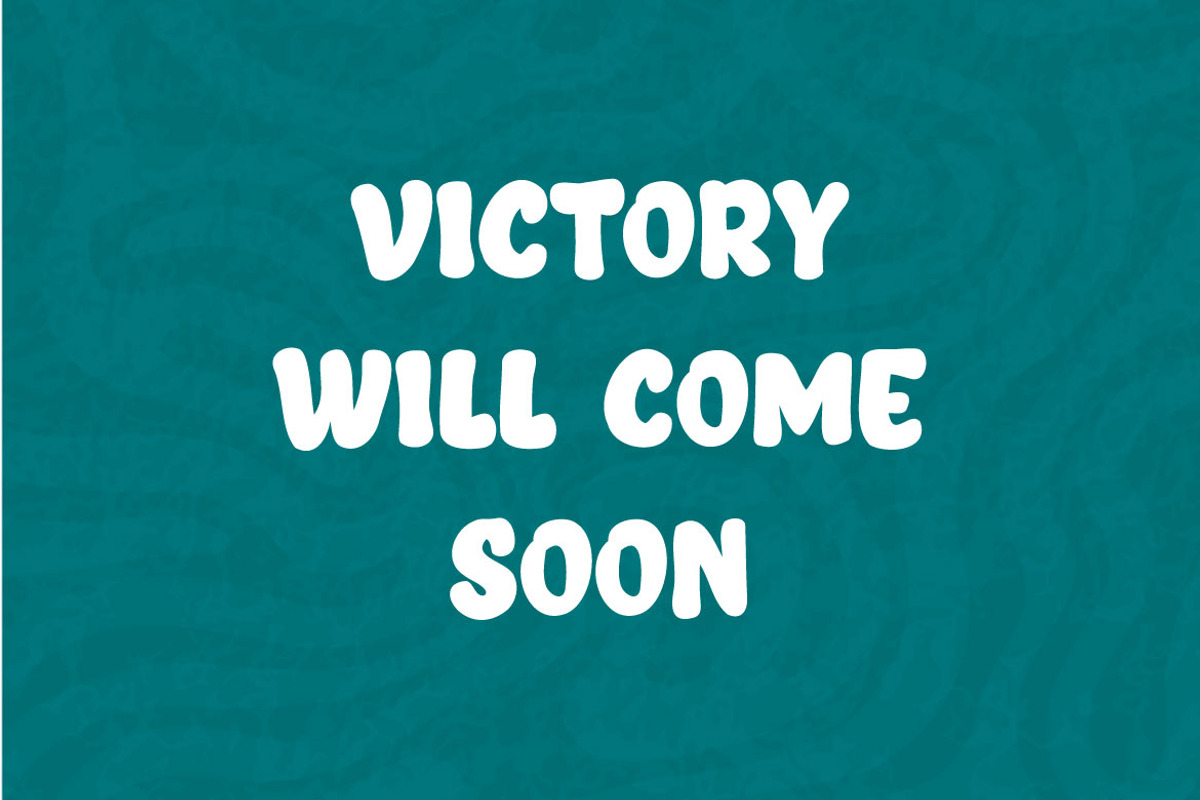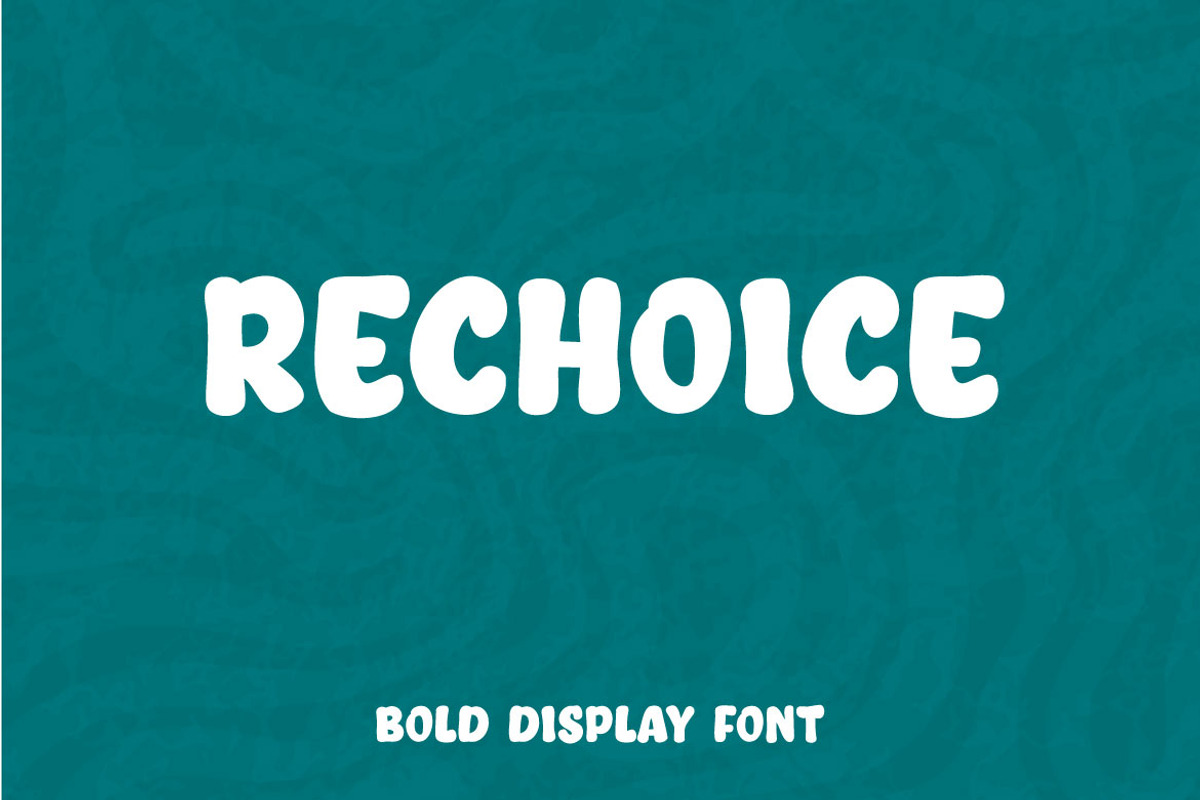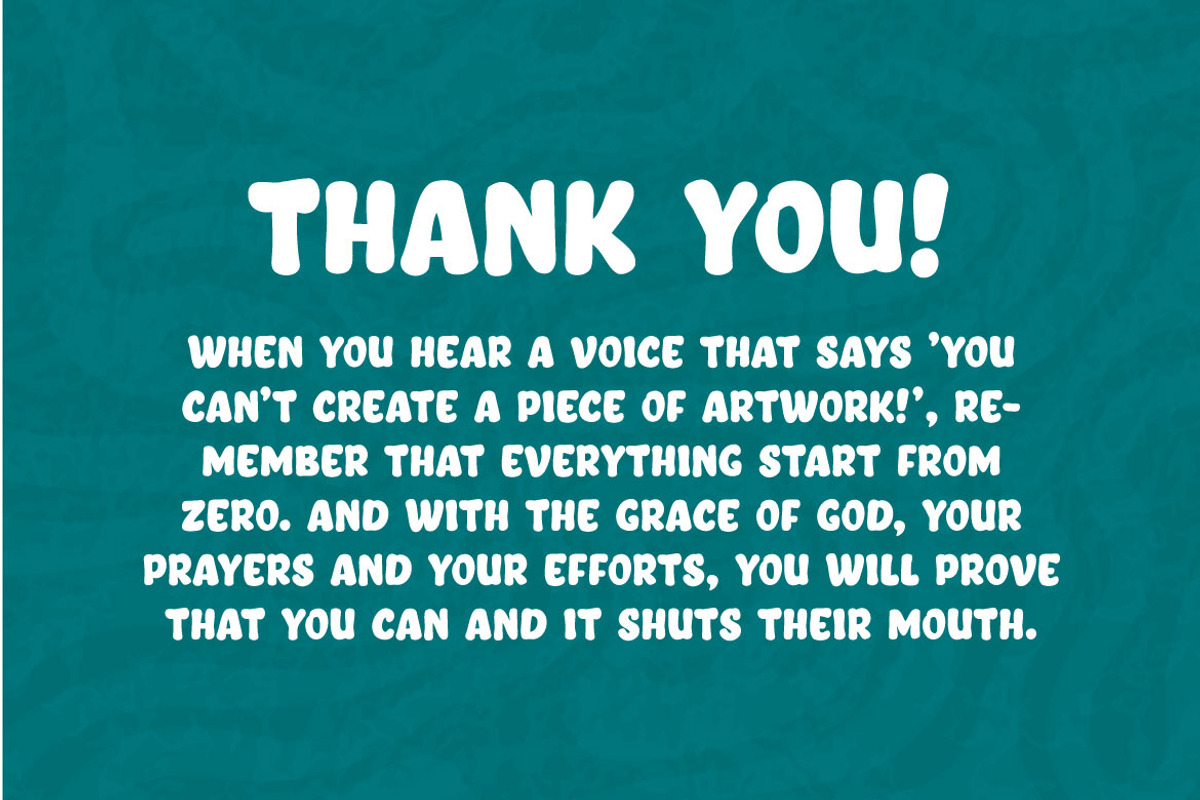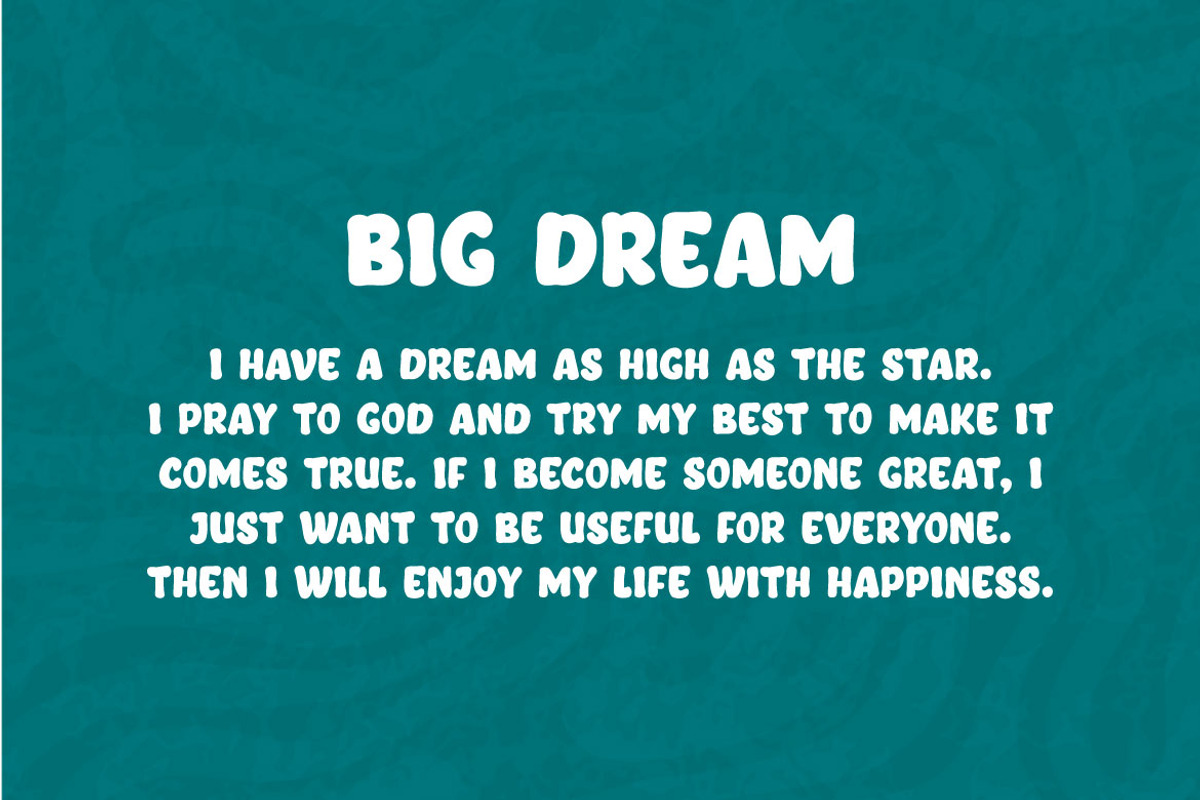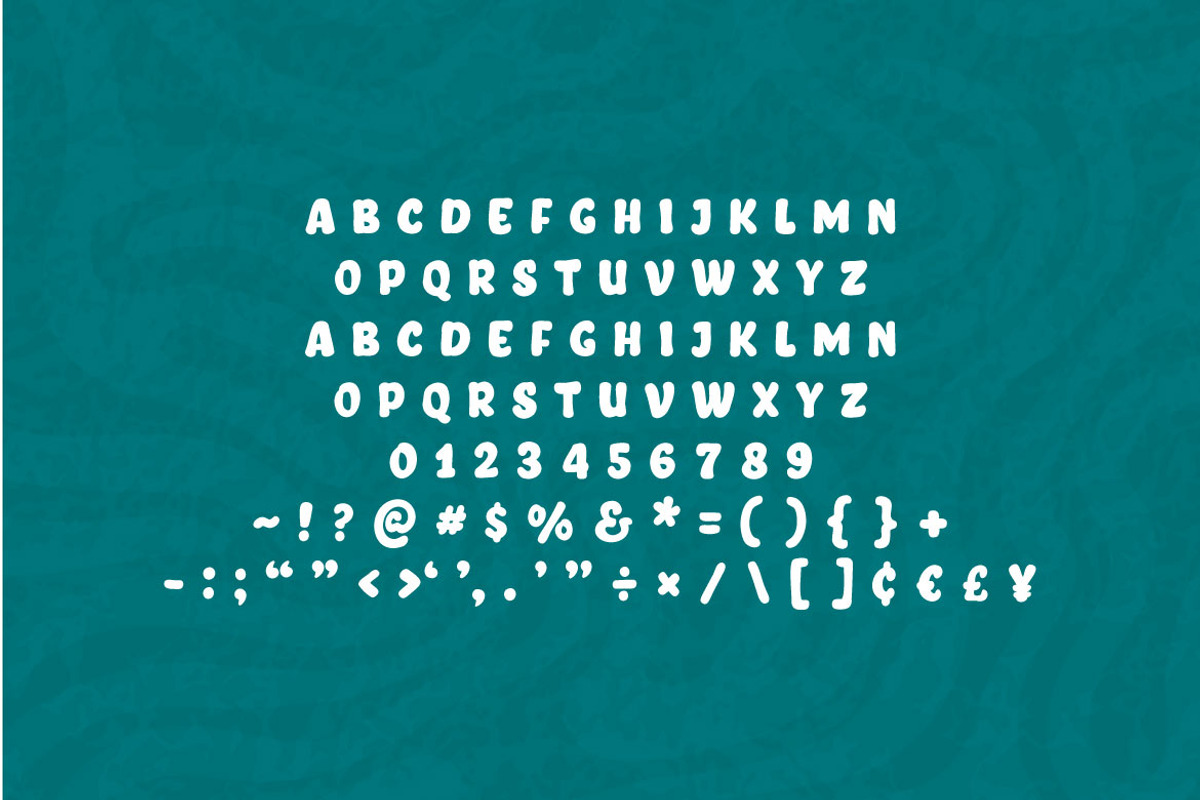
ReChoice - Bold Display Font
Introducing ReChoice our bold display font.
ReChoice communicates a sense of strength and significance, conveying a message of importance and urgency. Whether utilized in headings, subheadings, or within the body of text, this font demands consideration and ensures that the highlighted content captures the reader's gaze. This stylistic choice is a visual declaration, a deliberate choice to underscore specific elements and facilitate a clearer hierarchy in written communication.